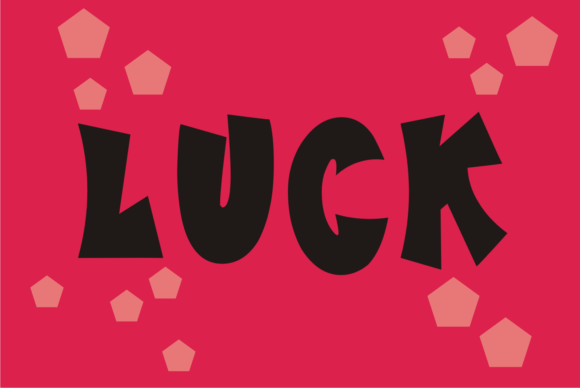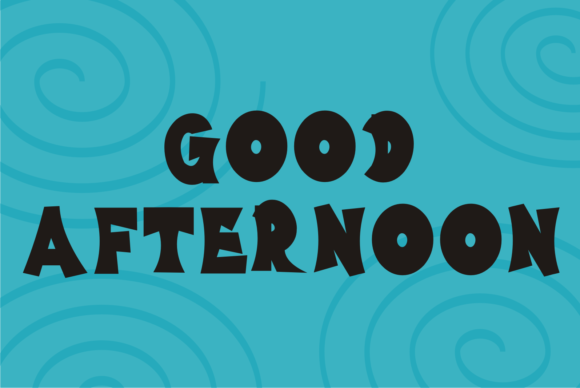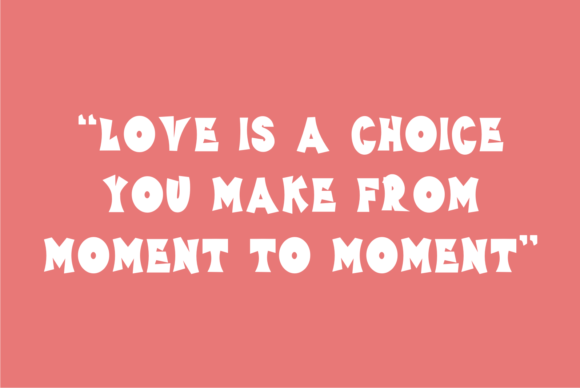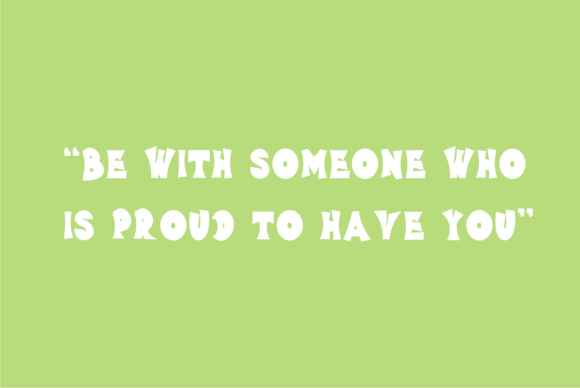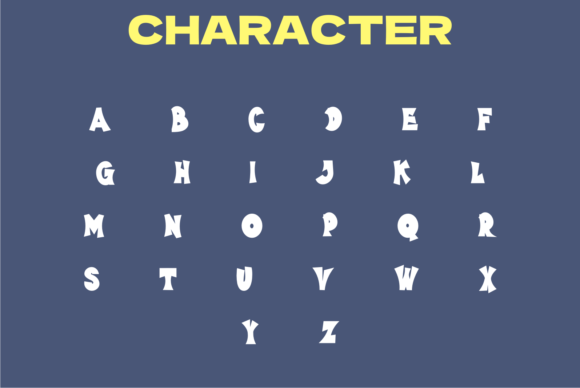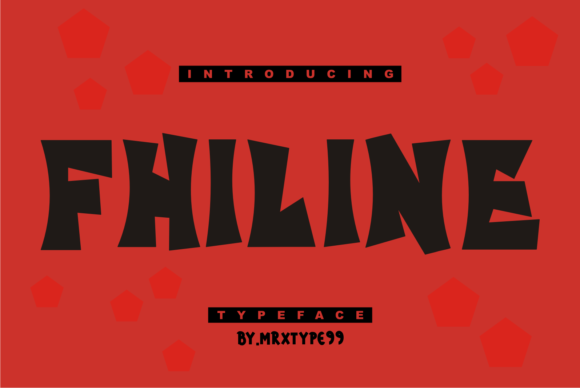
Fhiline Font: Elevate Your Designs with a Thick-Lettered and Cool Display Font
In the world of design, fonts play a crucial role in making your creations stand out. A well-chosen font can instantly elevate your project and make it more appealing to your audience. If you’re looking for a font that exudes simplicity, yet packs a strong visual punch, look no further than the Fhiline Font. In this article, we’ll dive into the features and benefits of Fhiline, and explore how it can take your designs to the next level.
What is Fhiline Font?
Fhiline is a thick-lettered and cool display font that’s perfect for designers and crafters looking to add a touch of sophistication to their projects. With its simple yet bold design, Fhiline is ideal for creating eye-catching headlines, titles, and captions that demand attention. This font is designed to be versatile, making it suitable for a wide range of applications, from branding and advertising to packaging and digital media.
Key Features of Fhiline Font
- Thick-Lettered Design: Fhiline’s thick-lettered design makes it perfect for creating bold and eye-catching text that stands out from the crowd.
- Simple yet Effective: Fhiline’s simplicity is its strength. The font’s clean lines and minimal ornamentation make it easy to read and understand, while its bold design ensures it grabs attention.
- Strong Visual Effect: Fhiline’s unique design creates a strong visual effect that instantly elevates your designs and makes them more appealing.
- Versatile: Fhiline is a versatile font that can be used in a wide range of applications, from digital media to print materials.
Benefits of Using Fhiline Font
So why choose Fhiline Font for your next project? Here are just a few benefits of using this amazing font:
- Instantly Elevate Your Designs: With Fhiline, you can instantly elevate your designs and make them more appealing to your audience.
- Save Time and Effort: Fhiline’s bold design means you can create eye-catching text quickly and easily, saving you time and effort.
- Stand Out from the Crowd: Fhiline’s unique design ensures your text stands out from the crowd, grabbing attention and making your message more memorable.
Who Can Benefit from Fhiline Font?
Fhiline Font is perfect for a wide range of designers and crafters, including:
- Graphic Designers: Fhiline is ideal for graphic designers looking to create eye-catching text and titles for their designs.
- Digital Artists: Fhiline’s bold design makes it perfect for digital artists looking to add a touch of sophistication to their work.
- Crafters: Fhiline is great for crafters who want to create beautiful and eye-catching text for their handmade projects.
How to Use Fhiline Font
Using Fhiline Font is easy. Here are a few tips to get you started:
- Pair with Other Fonts: Fhiline pairs well with other fonts, so feel free to experiment with different combinations to create a unique look.
- Use for Headlines and Titles: Fhiline is perfect for creating eye-catching headlines and titles that demand attention.
- Experiment with Colors: Fhiline looks great in a range of colors, so don’t be afraid to experiment and find the perfect hue for your design.
In conclusion, Fhiline Font is a thick-lettered and cool display font that’s perfect for designers and crafters looking to elevate their designs. With its simple yet bold design, Fhiline is ideal for creating eye-catching text that stands out from the crowd. Whether you’re a graphic designer, digital artist, or crafter, Fhiline is a versatile font that can help you achieve your creative goals. So why wait? Give Fhiline a try today and see the difference it can make in your designs!